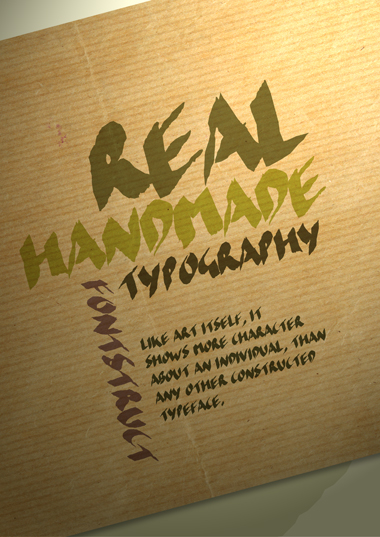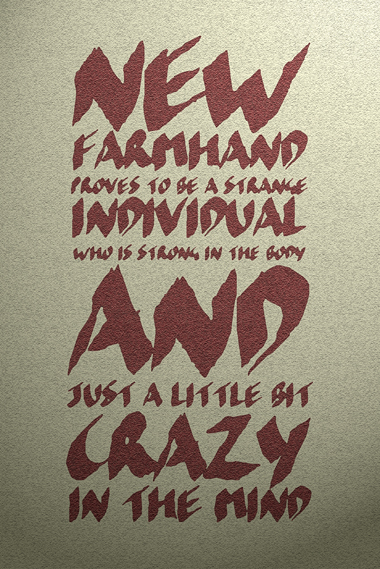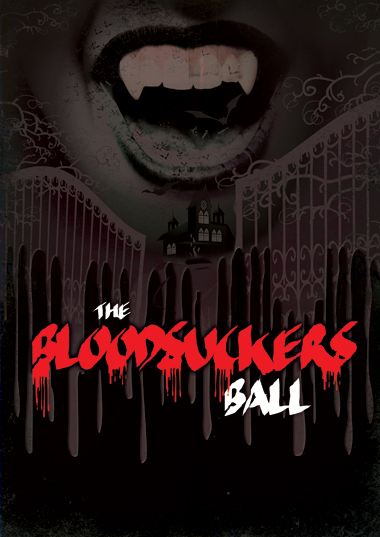
Let's talk about how brilliant the fontstruction. Inquiring minds want to know the inspiration behind it. Talk us through the process.
A few months back, I decided I wanted to create a hand rendered Black Letter font using a calligraphy pen, for a Halloween Poster I was designing. I nearly released the Black Letter version for the comp, but thought it too obvious an idea, and it just looked too contrived.
So I then moved onto various hand written Alphabets at different angles and sizes using the Edding 5.0 Calligraphy Pen. It seemed to work. I then scanned the results into Photoshop, and created PATHS around each letter, by highlighting one letter, then selecting SIMILAR to highlight the rest of the font. I then exported PATHS to illustrator, and placed them over a grid (suitable for Fontstructing), and calculated which brick goes where.
A very long and time consuming technique, but with very rewarding results.
It was made less painful by utilising my All COMPOSITES SAVED IN MY BRICKS
the font is beatiful and the technique behind took a lot of time.